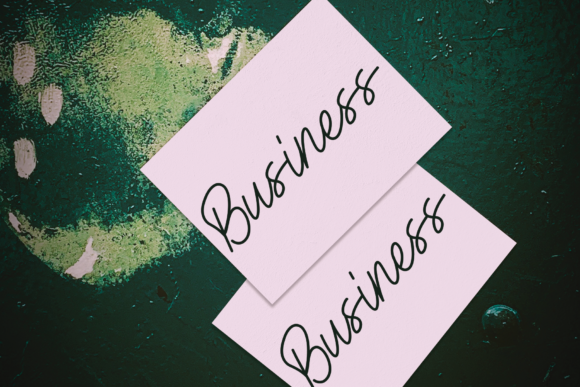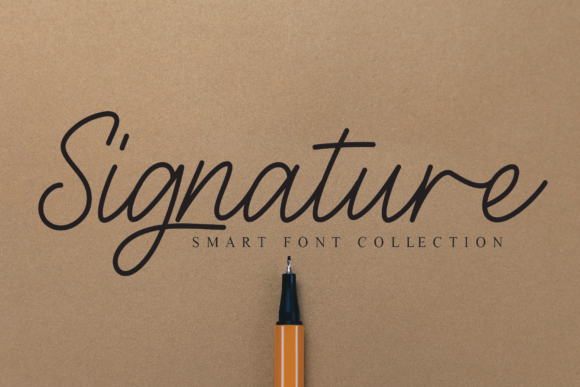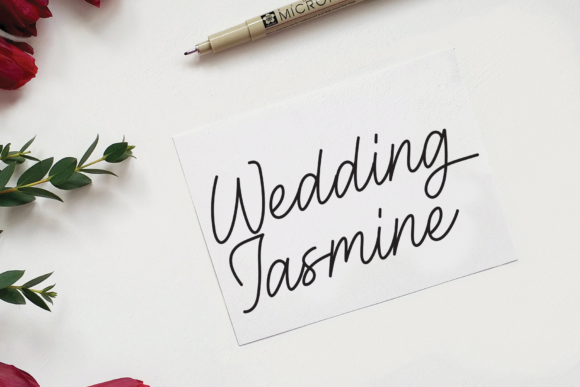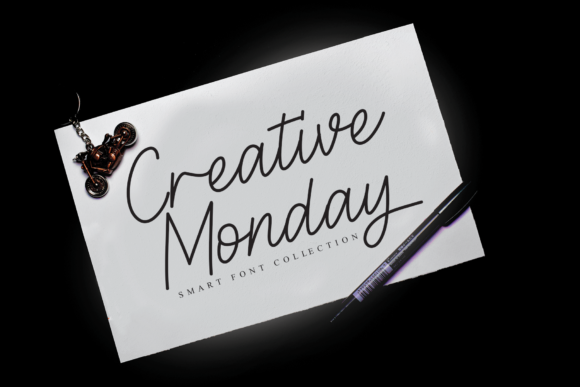
Bring Joy and Romance to Your Projects with Buttellia Valentine Font
Are you looking for a font that can add a touch of romance and joy to your projects? Look no further than Buttellia Valentine Font! This beautiful, thin, and natural handwritten font is perfect for crafters, digital designers, and anyone looking to add a personal touch to their work. In this article, we’ll explore the features and benefits of Buttellia Valentine Font and show you how it can elevate your projects to the next level.
A Font that Speaks to the Heart
Buttellia Valentine Font is a unique and charming font that is sure to capture the hearts of your audience. Its thin and natural handwritten style gives it a personal and intimate feel, making it perfect for projects that require a touch of warmth and personality. Whether you’re creating greeting cards, presentations, or digital designs, Buttellia Valentine Font is the perfect choice.
Features of Buttellia Valentine Font
- Thin and Natural Handwritten Style: Buttellia Valentine Font features a beautiful, thin, and natural handwritten style that is both elegant and charming.
- Perfect for Romantic and Joyful Projects: This font is designed to add a touch of romance and joy to your projects, making it perfect for Valentine’s Day, anniversaries, weddings, and other special occasions.
- Versatile and Multi-Purpose: Buttellia Valentine Font is perfect for a wide range of projects, including crafting, digital designing, presentations, greeting cards, and more.
- Easily Readable: Despite its thin style, Buttellia Valentine Font is easily readable, making it perfect for both digital and print projects.
Benefits of Using Buttellia Valentine Font
So, why should you choose Buttellia Valentine Font for your projects? Here are just a few benefits of using this beautiful font:
- Adds a Personal Touch: Buttellia Valentine Font adds a personal and intimate touch to your projects, making them more relatable and engaging.
- Creates a Unique and Memorable Impression: The unique style of Buttellia Valentine Font will help your projects stand out and create a lasting impression on your audience.
- Perfect for Branding and Marketing: This font is perfect for branding and marketing projects, especially those that require a touch of elegance and sophistication.
Project Ideas Using Buttellia Valentine Font
Buttellia Valentine Font is perfect for a wide range of projects, including:
- Greeting Cards: Create beautiful and romantic greeting cards for special occasions like Valentine’s Day, anniversaries, and weddings.
- Digital Designs: Use Buttellia Valentine Font to create stunning digital designs, including social media graphics, blog posts, and email newsletters.
- Presentations: Add a touch of elegance and sophistication to your presentations with Buttellia Valentine Font.
- Crafting: Use this font to create beautiful and unique craft projects, including handmade cards, scrapbooking, and DIY decor.
In conclusion, Buttellia Valentine Font is a beautiful and versatile font that is perfect for adding a touch of romance and joy to your projects. Its thin and natural handwritten style makes it perfect for a wide range of projects, from greeting cards to digital designs. With its ease of use and versatility, Buttellia Valentine Font is a must-have for designers and crafters of all levels. So why wait? Download Buttellia Valentine Font today and start creating beautiful and memorable projects!